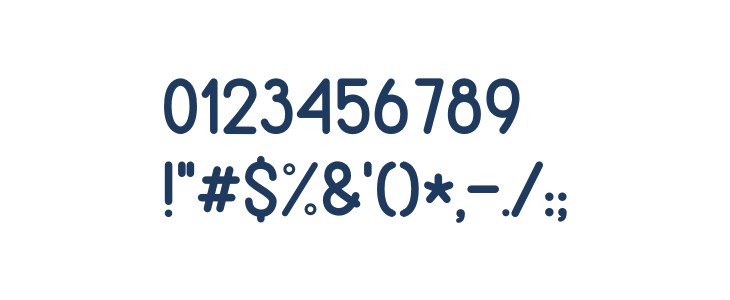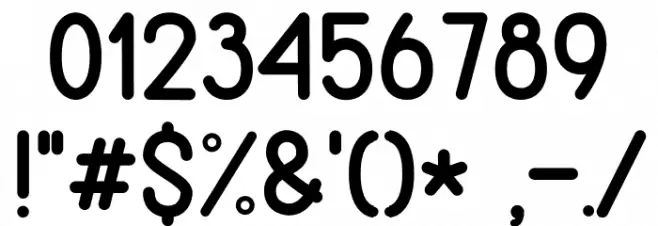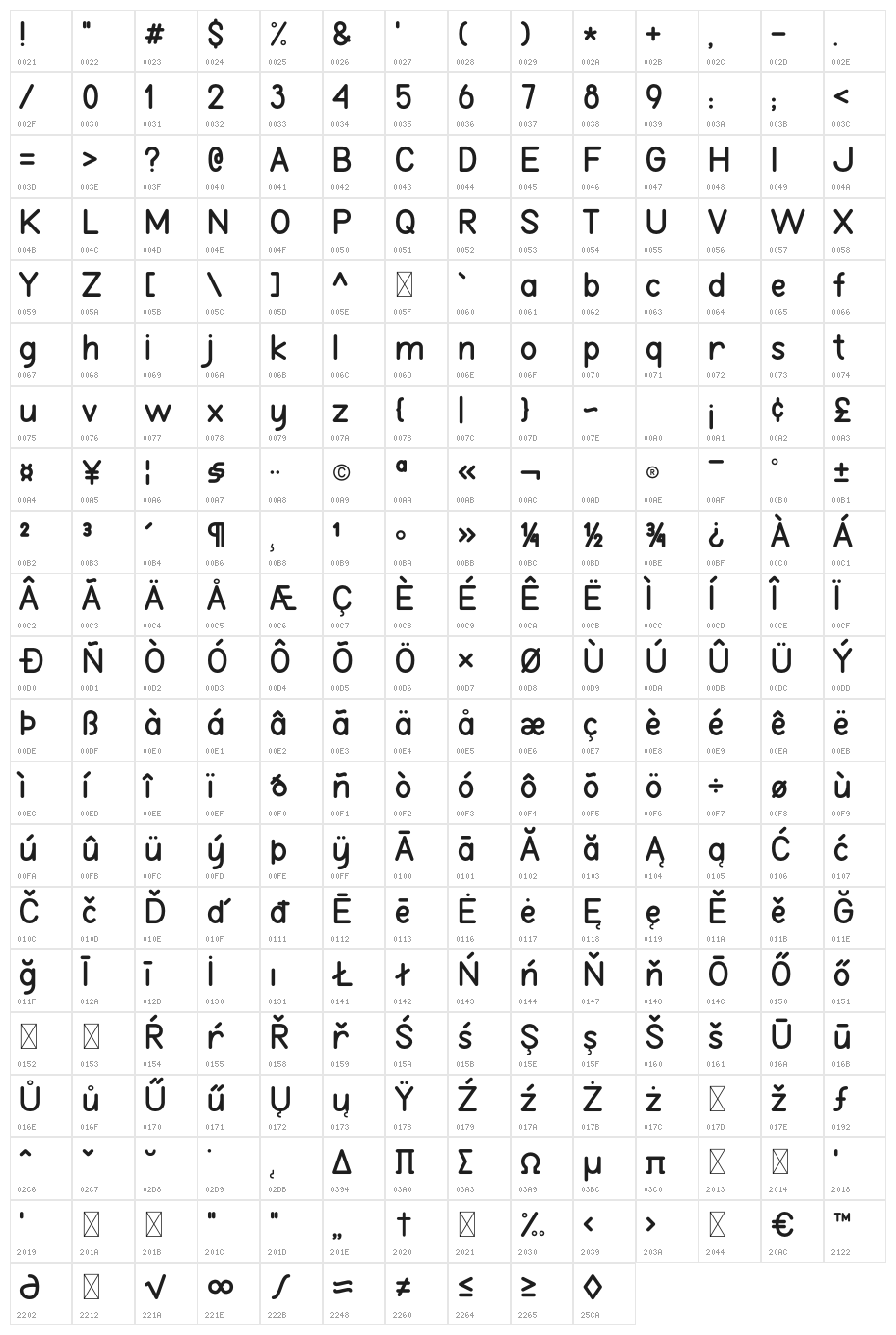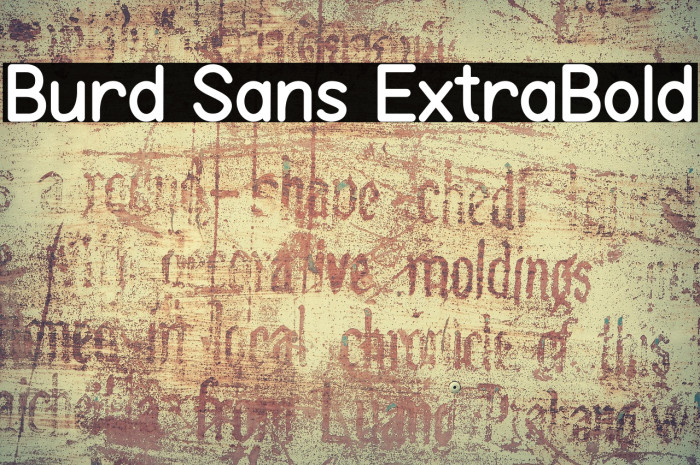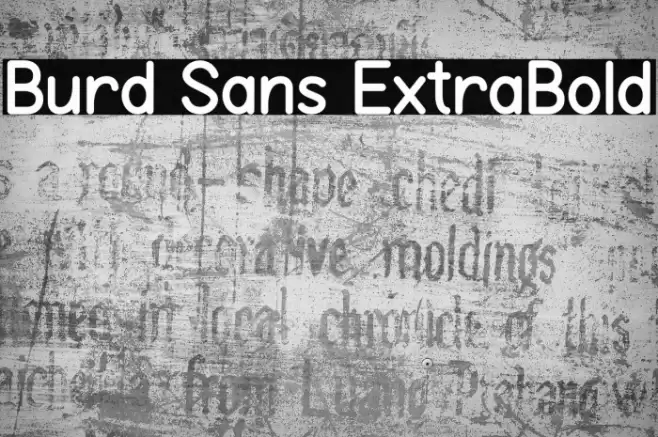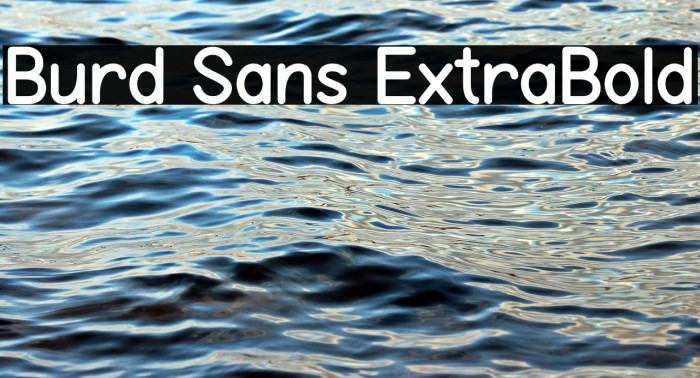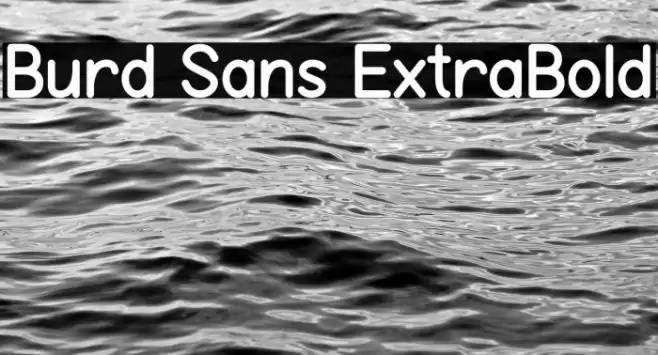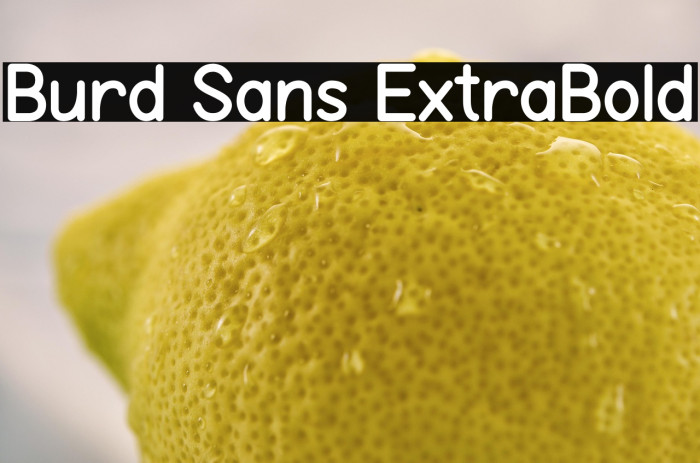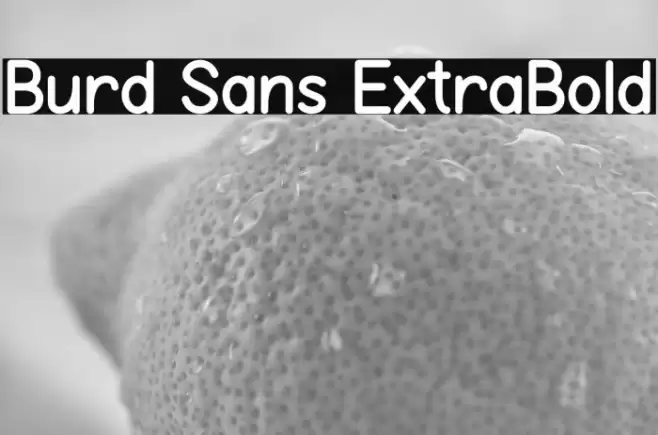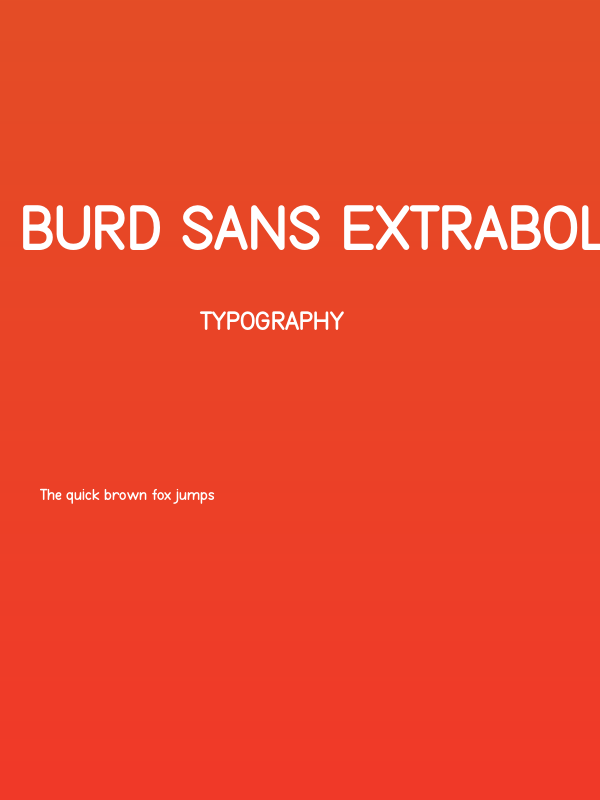
Burd Sans ExtraBold Font
Burd Sans ExtraBold Description
This font features a clean and modern sans-serif style with rounded edges, giving it a friendly and approachable appearance. The characters are bold and uniform, providing excellent readability. The uppercase and lowercase letters maintain a consistent height, while the numerals are clear and distinct. Special characters are well-defined, ensuring versatility in various design applications. The overall look is contemporary, making it suitable for both digital and print media.
| Use Case | Headlines, Logos, User Interfaces |
| Proposed Projects | Ideal for branding, advertising, web design, and user interfaces due to its clarity and modern appeal. |